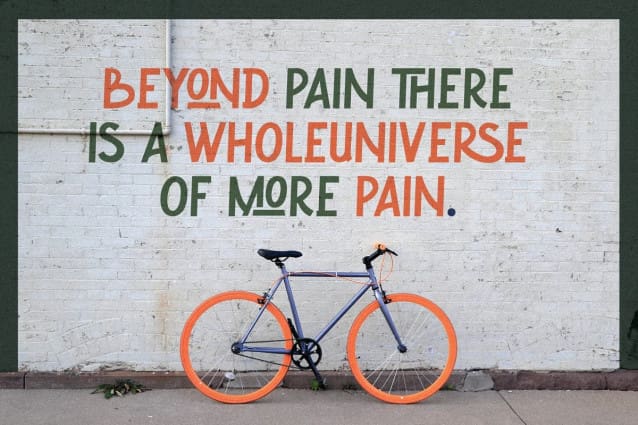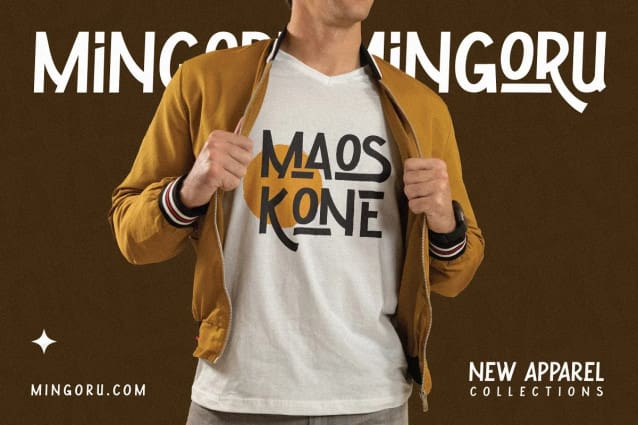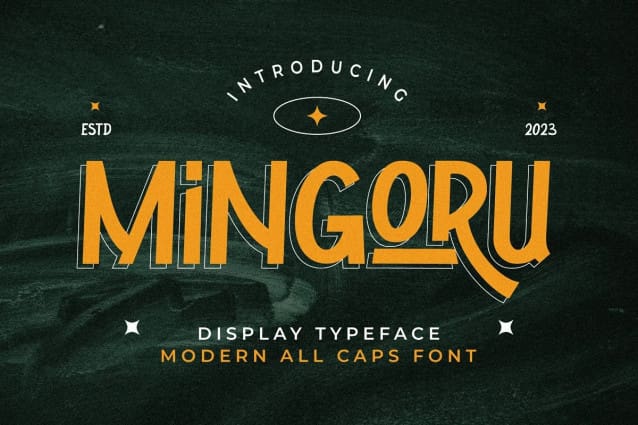
Mingoru Display Font
Mingoru Display Font – All caps San Serif. A captivating and versatile San Serif font designed to add a touch of elegance and modernity to any project. Whether you’re designing for the fashion industry, food industry, or another business. With its stylish and contemporary All caps San Serif style, Mingoru – All caps San Serif effortlessly captures attention and elevates your designs to new heights.
Key Features:
Alternate Characters: Mingoru Display Font – All caps San Serif comes with a variety of alternate characters that allow you to create endless variations and combinations. Easily add a creative touch to your designs!
Ligatures: Presenting beautiful ligatures, Mingoru – All caps San Serif provides the possibility to combine characters and create a harmonious and flowing appearance.
Multilingual Support: The multilingual support enables you to reach a global audience with ease. Mingoru – All caps San Serif includes the necessary characters for major languages worldwide.
Symbols and Numerals: In addition to letter characters, Mingoru Display Font – All caps San Serif also provides elegant symbols
and numerals, offering convenience in creating cohesive and comprehensive designs.